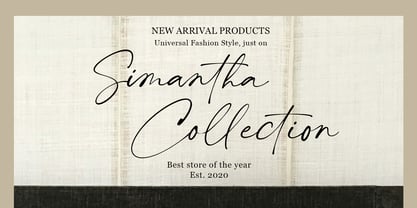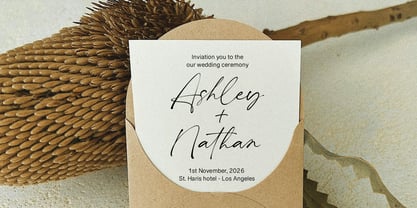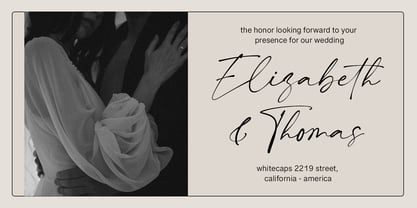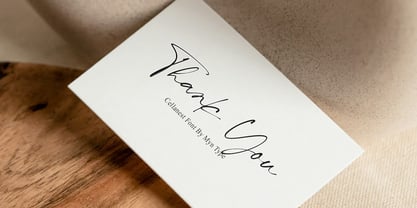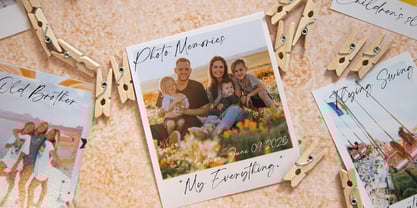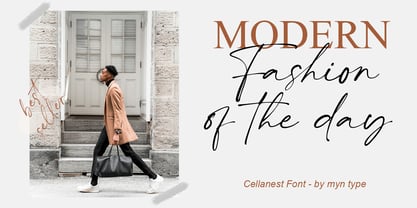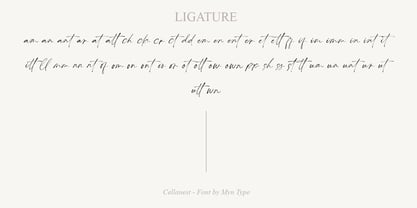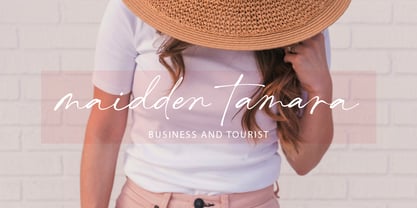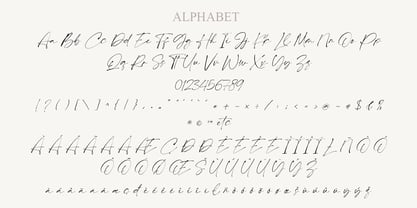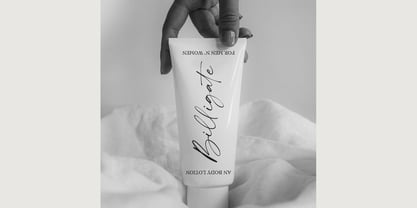
Cellanest
by Myn Type
The Cellanest Font Family was designed by Suyuti Amien and published by Myn Type. Cellanest contains 1 styles.
Introducing, Cellanest Font! ✨
A classy handwritten script font that exudes timeless elegance, refined charm, and the beauty of natural handwriting. Every curve and stroke is thoughtfully designed to evoke elegance, warmth, and personality include features smooth, fluid strokes and authentic ligatures that enhance its handwritten feel.
This font perfect for wedding desing, social media posts, upscale packaging, branding, calligraphy logos, display product, invitation design. Whether you're designing, Cellanest Font adds a refined, graceful touch to any layout.
Designers: Suyuti Amien
Publisher: Myn Type
Foundry: Myn Type
Design Owner: Myn Type